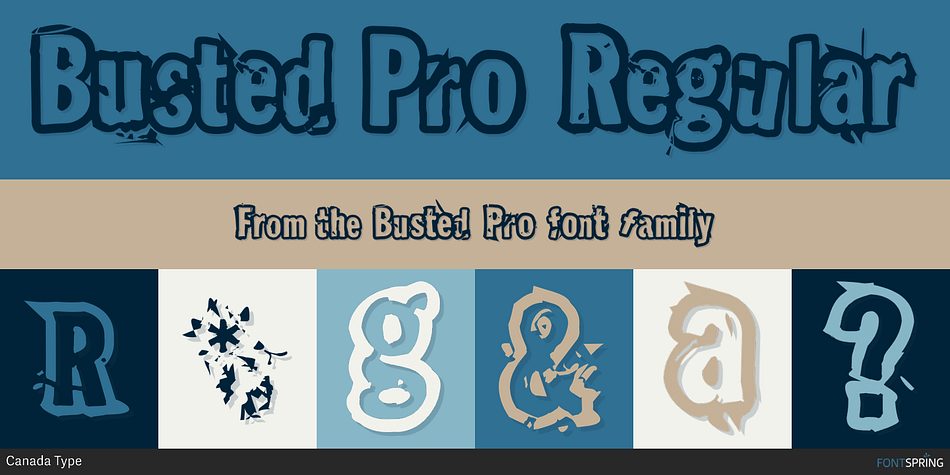
Busted Pro Regular
Busted Pro is a grunge font published by Canada Type.
Busted is the very strange and out-of-character outburst of Bill Troop, a guy who was classically trained in everything, from classical piano and literature to classical photography and type design.
Busted is the very strange and out-of-character outburst of Bill Troop, a guy who was classically trained in everything, from classical piano and literature to classical photography and type design. As far as we could tell, Bill Troop is the kind of guy whose appearance and voice instantly trigger thoughts of black and white photos, fedoras, and pre-industrial age Europe. A few years ago, he even moved from the United States to England, where it took him less than a week to feel at home and start sounding like a Norwich native. Then something happened and the poor dude just snapped. Busted is the controversial result of the blood rushing to his head. If you know what exactly happened to him, please let us know.
Concern, consideration and human interest story aside, Busted is a fascinating thing. It is a set of four interchangeable thick outline fonts where the same letter forms turn from wild to wilder to broken to somewhat clean. Mix them up in a setting and you have words that snarl with a sneer. Life